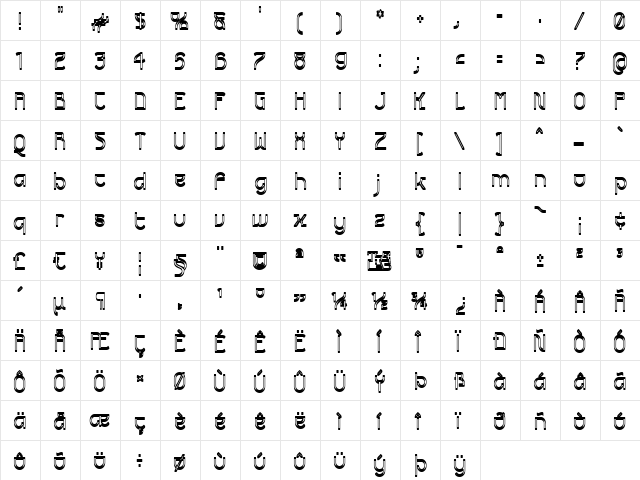
Futurex Dropshaft Regular
| Designer | Graham Meade |
Design Context for Futurex Dropshaft Typeface
Futurex Dropshaft channels digital-age aesthetics through its sharp, structured letterforms — ideal for brands that want to signal innovation.
Pro Tip: Use Futurex Dropshaft in combination with a neutral sans for body text. Let it define the brand voice in headlines while keeping reading comfortable elsewhere.